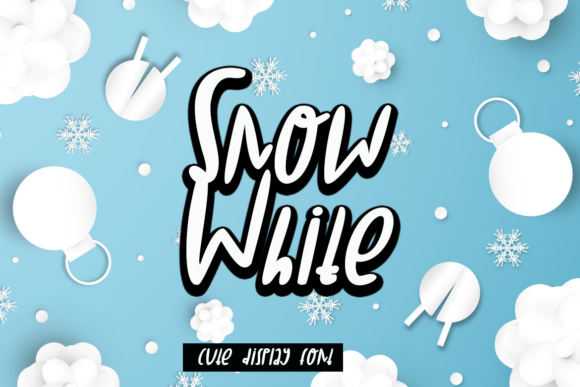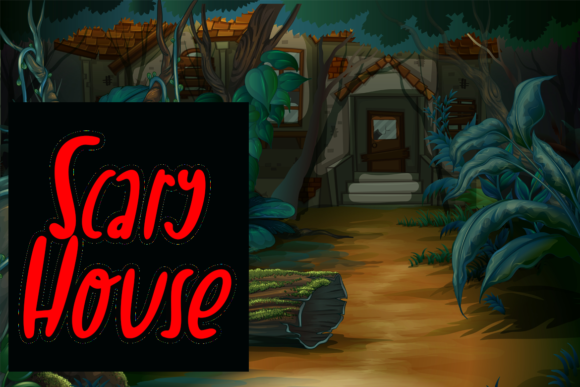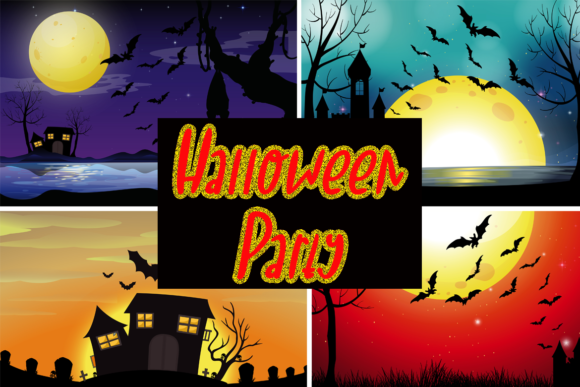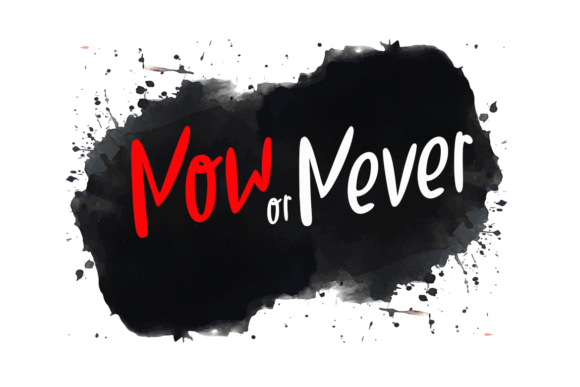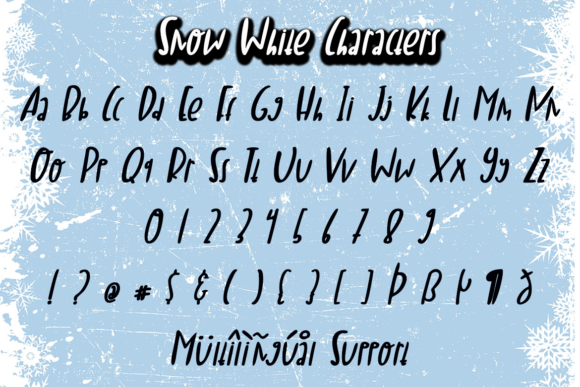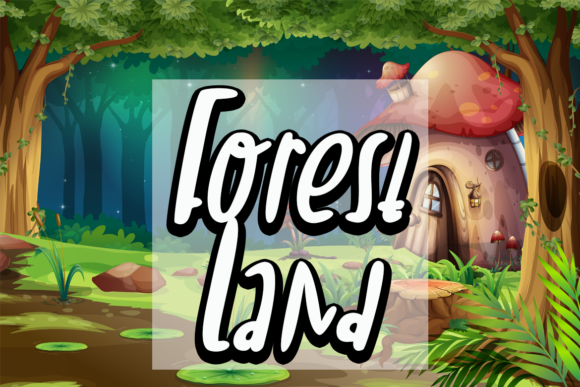
Snow White Font
About Snow White Font
Snow White is a trendy handwritten font with a very simple and neat vibe. Get creative with its childlike playfulness, and use it to brighten up any kids and school project!